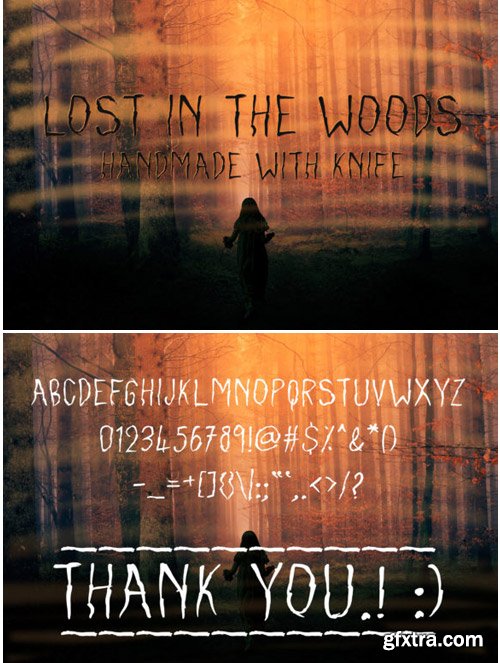
Lost in the Woods Font
Like it’s carved into wood with a knife, Lost in the Woods is a creepy and rough sans serif font. It will turn any design idea into an eye-catcher!